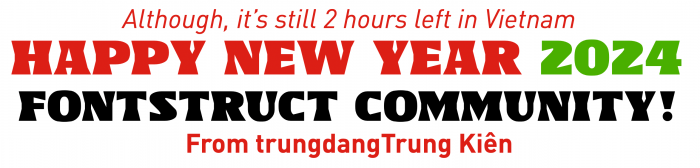
• Finally done! The Vietnamese version of Zerondo.
Update: Added the Ĩ that I have forgotten about.
You appear to forgotten about Ĩ, which is also used in Vietnamese.
For an European, the accentuations of the Vietnamese language are unusual, but there is no doubt that letters with more than one accent on them are especially beautiful. Thanks for expanding this font, Kiên!
@elmoyenique: Some foreign people (we call them as "Tây" people) are a little bit confused when they see or try to design Vietnamese character, a lot of them has 2 accents above them, the challenge here is how to design it correctly and make it can be seen in small sizes especially the hookabove (which is a small look-like-question mark above the letter). For me, a Vietnamese, I have to make it be recognized as fast as possible for our people. We have seen a lot of fonts with a lot of the stacked-accent variations, so we have more experiences in designing this part of the font.
For anyone that needs these, here are some sample texts to check if you've got all the letters, including diacritics:
Consonants: Bb Cc Dd Gg Hh Kk Ll Mm Nn Pp Qq Rr Ss Tt Vv Xx
Base: Aa Ăă Ââ Ee Êê Ii Oo Ôô Ơơ Uu Ưư Yy
Grave: Àà Ằằ Ầầ Èè Ềề Ìì Òò Ồồ Ờờ Ùù Ừừ Ỳỳ
Acute: Áá Ắắ Ấấ Éé Ếế Íí Óó Ốố Ớớ Úú Ứứ Ýý
Dot Below: Ạạ Ặặ Ậậ Ẹẹ Ệệ Ịị Ọọ Ộộ Ợợ Ụụ Ựự Ỵỵ
Tilde: Ãã Ẵẵ Ẫẫ Ẽẽ Ễễ Ĩĩ Õõ Ỗỗ Ỡỡ Ũũ Ữữ Ỹỹ
Hook: Ảả Ẳẳ Ẩẩ Ẻẻ Ểể Ỉỉ Ỏỏ Ổổ Ởở Ủủ Ửử Ỷỷ
D With Stroke: Đđ
Unused: Ff Jj Ww Zz
For fonts with only capital letters:
CONSONANTS: B C D G H K L M N P Q R S T V X
BASE: A Ă Â E Ê I O Ô Ơ U Ư Y
GRAVE: À Ằ Ầ È Ề Ì Ò Ồ Ờ Ù Ừ Ỳ
ACUTE: Á Ắ Ấ É Ế Í Ó Ố Ớ Ú Ứ Ý
DOT BELOW: Ạ Ặ Ậ Ẹ Ệ Ị Ọ Ộ Ợ Ụ Ự Ỵ
TILDE: Ã Ẵ Ẫ Ẽ Ễ Ĩ Õ Ỗ Ỡ Ũ Ữ Ỹ
HOOK: Ả Ẳ Ẩ Ẻ Ể Ỉ Ỏ Ổ Ở Ủ Ử Ỷ
D WITH STROKE: Đ
UNUSED: F J W Z
For fonts with only lowercase letters:
consonants: b c d g h k l m n p q r s t v x
base: a ă â e ê i o ô ơ u ư y
grave: à ằ ầ è ề ì ò ồ ờ ù ừ ỳ
acute: á ắ ấ é ế í ó ố ớ ú ứ ý
dot below: ạ ặ ậ ẹ ệ ị ọ ộ ợ ụ ự ỵ
tilde: ã ẵ ẫ ẽ ễ ĩ õ ỗ ỡ ũ ữ ỹ
hook: ả ẳ ẩ ẻ ể ỉ ỏ ổ ở ủ ử ỷ
d with stroke: đ
unused: f j w z
@Kiên Trung Bạn có thể chỉnh sửa dấu breve không? Hiện tại, nó trông giống như dấu caron. Dưới đây là một ví dụ về cách bạn có thể sửa: